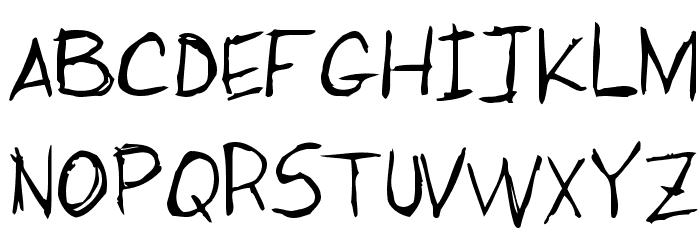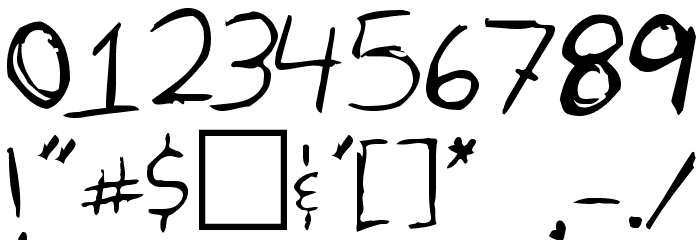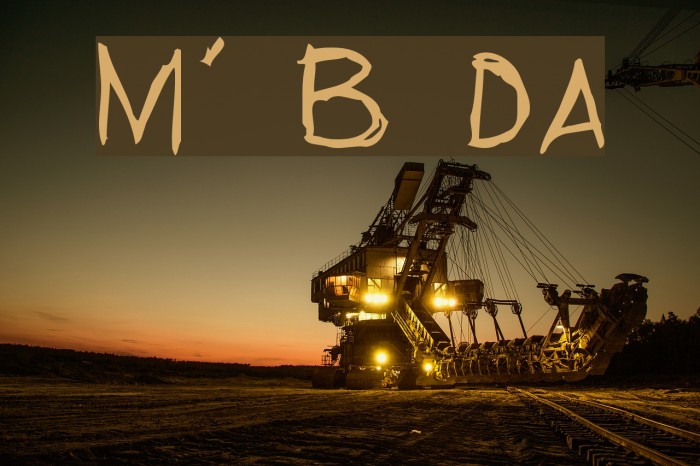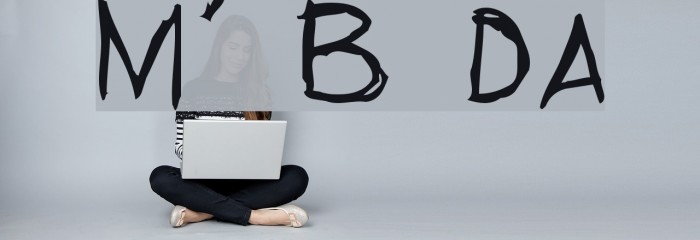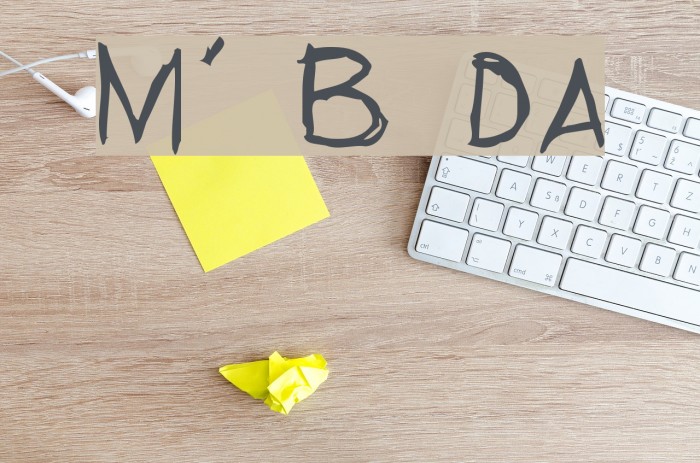
Mike's Big Day Font
This font features a playful and energetic handwritten style, characterized by its irregular strokes and dynamic flow. The letters have a casual, informal appearance, with varying stroke widths that add a sense of movement and spontaneity. The uppercase and lowercase letters maintain a consistent style, while the numbers and special characters complement the overall aesthetic. The font's unique personality makes it suitable for creative and informal projects, offering a lively and engaging visual experience.
A playful, handwritten font with dynamic strokes and an informal style.
- Font: Mike's Big Day
- Proposed Projects: Ideal for greeting cards, children's books, playful branding, and casual invitations.
- Category: Handwritten
- Overall Style: Playful, Informal
- Use Case: Headlines, Logos, Informal Text